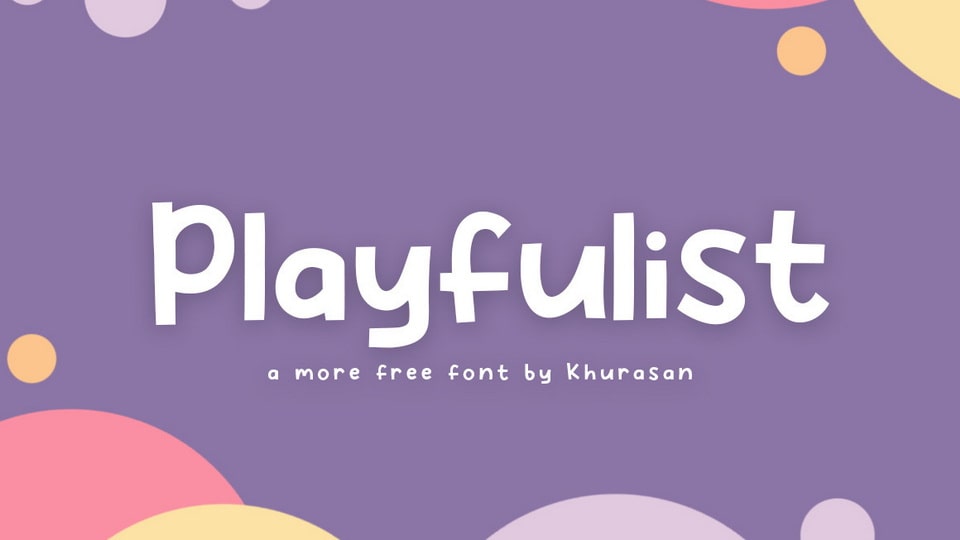
Download Playfulist font, a fun and friendly display typeface with a comic character. Playfulist font is perfect for posters, logos, magazines, book covers, banners, and many more.